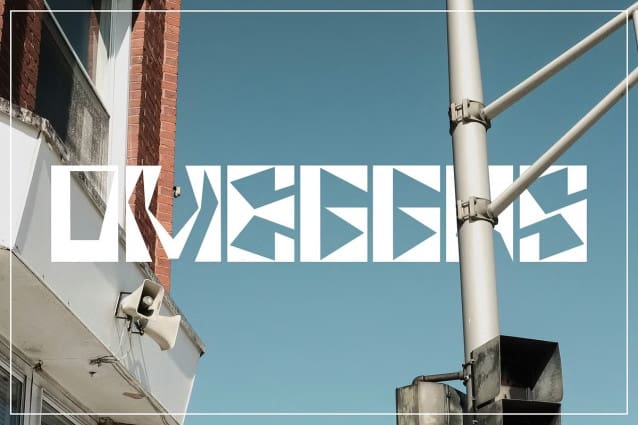
Surrealism Rose Font
Surrealism Rose Font is a unique font, with a Neo Surrealism theme, with a strong character, SurrealismRose is a techno, sporty, and modern type font that is suitable for your logo design project and also best for your display text title for posters, websites, and animation.